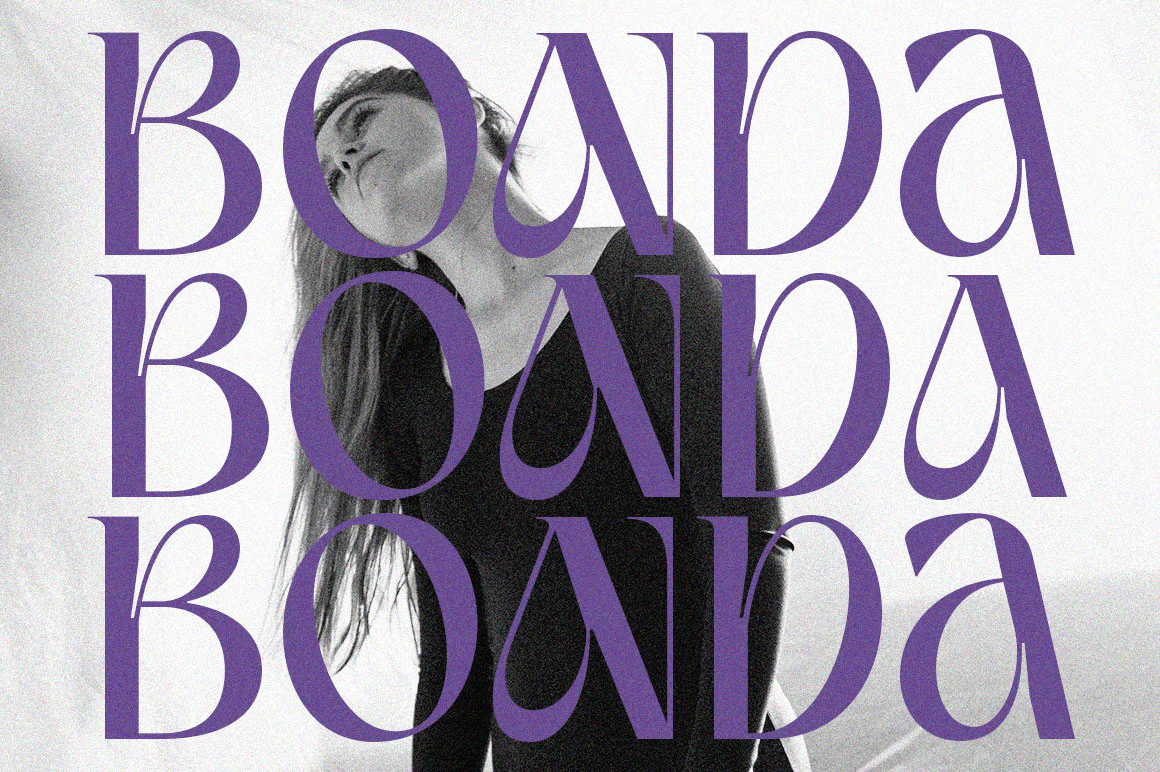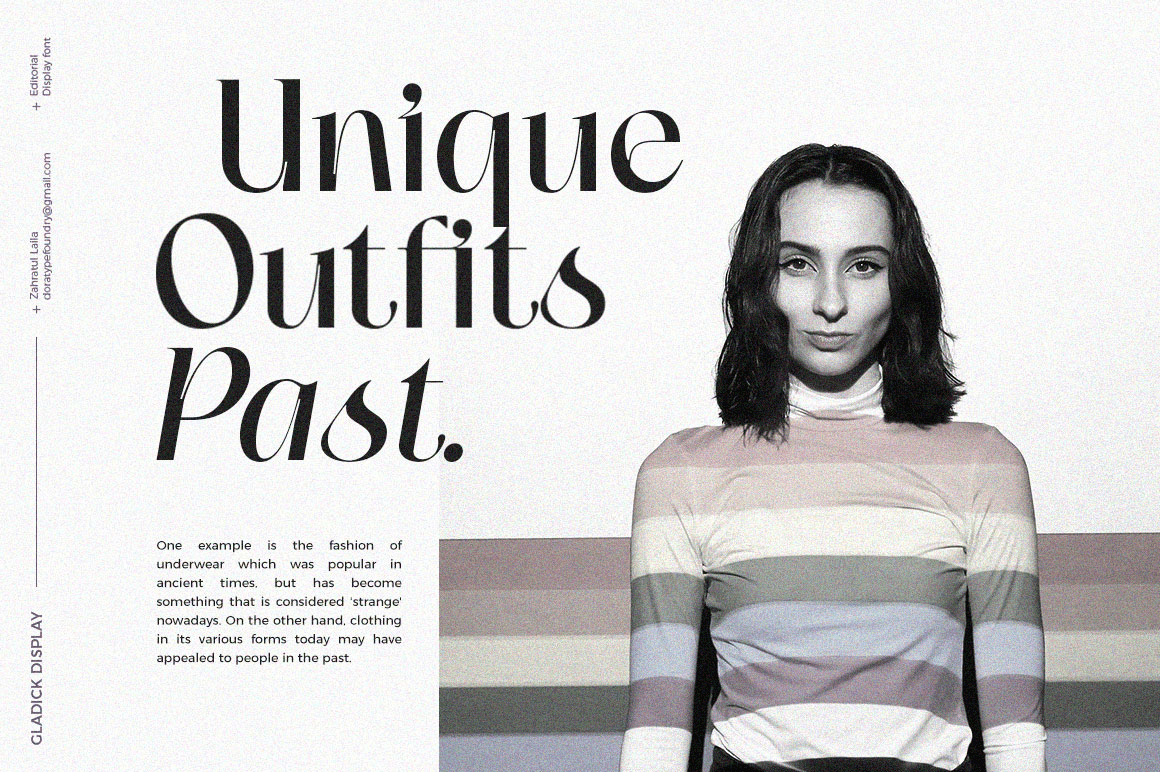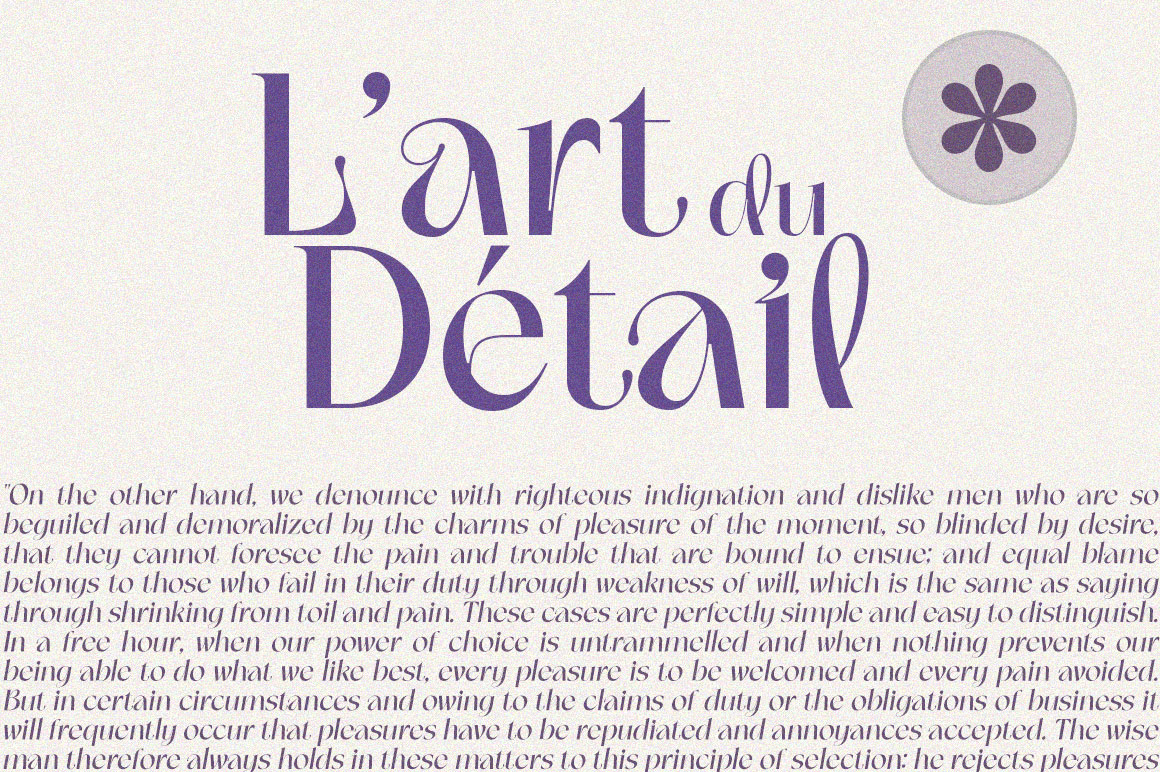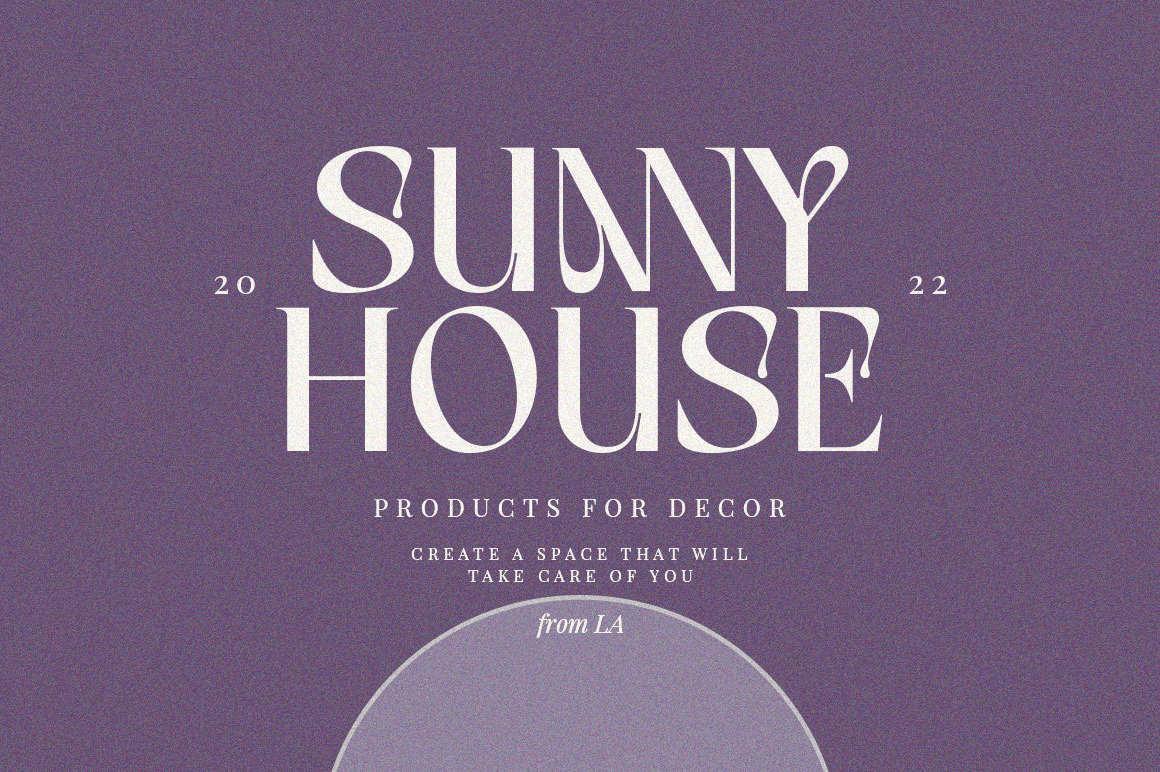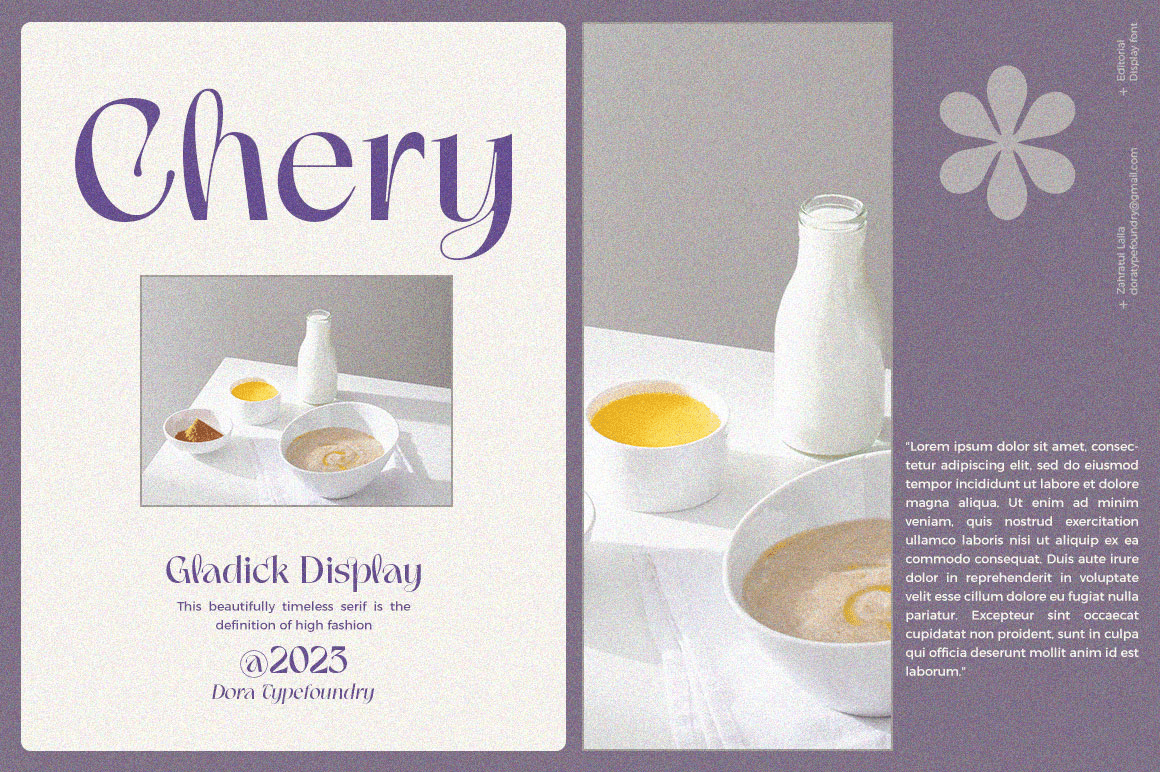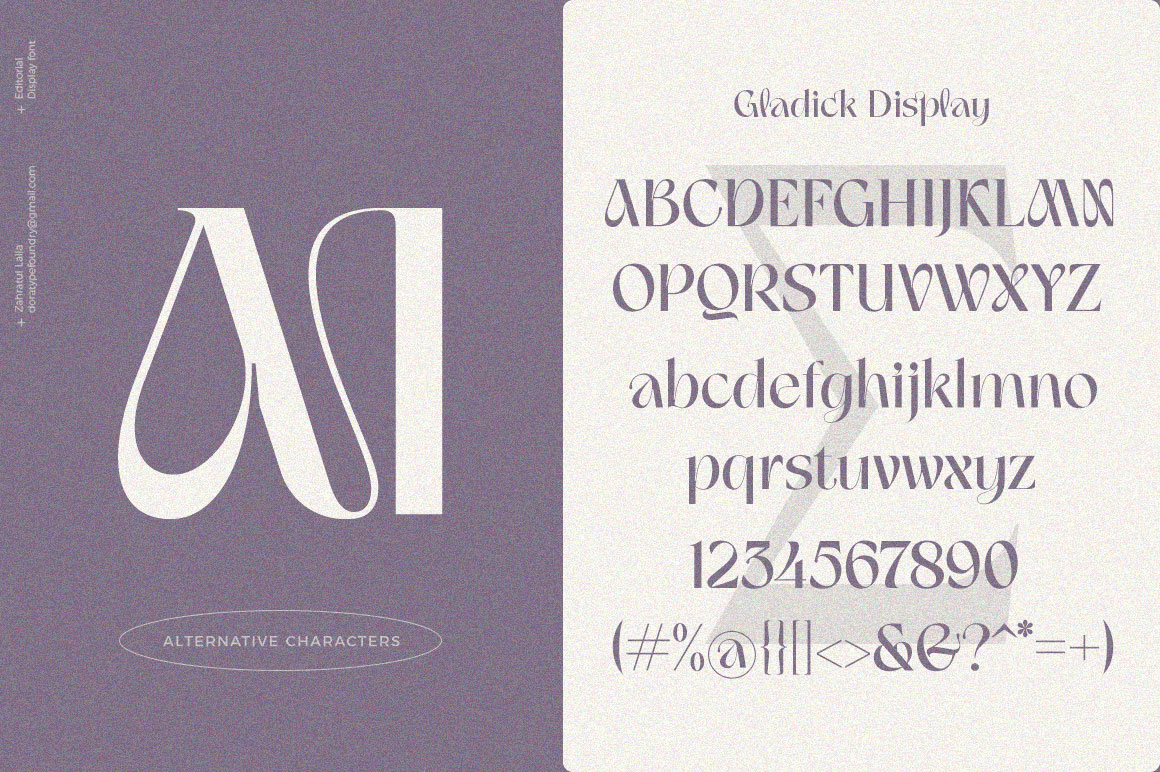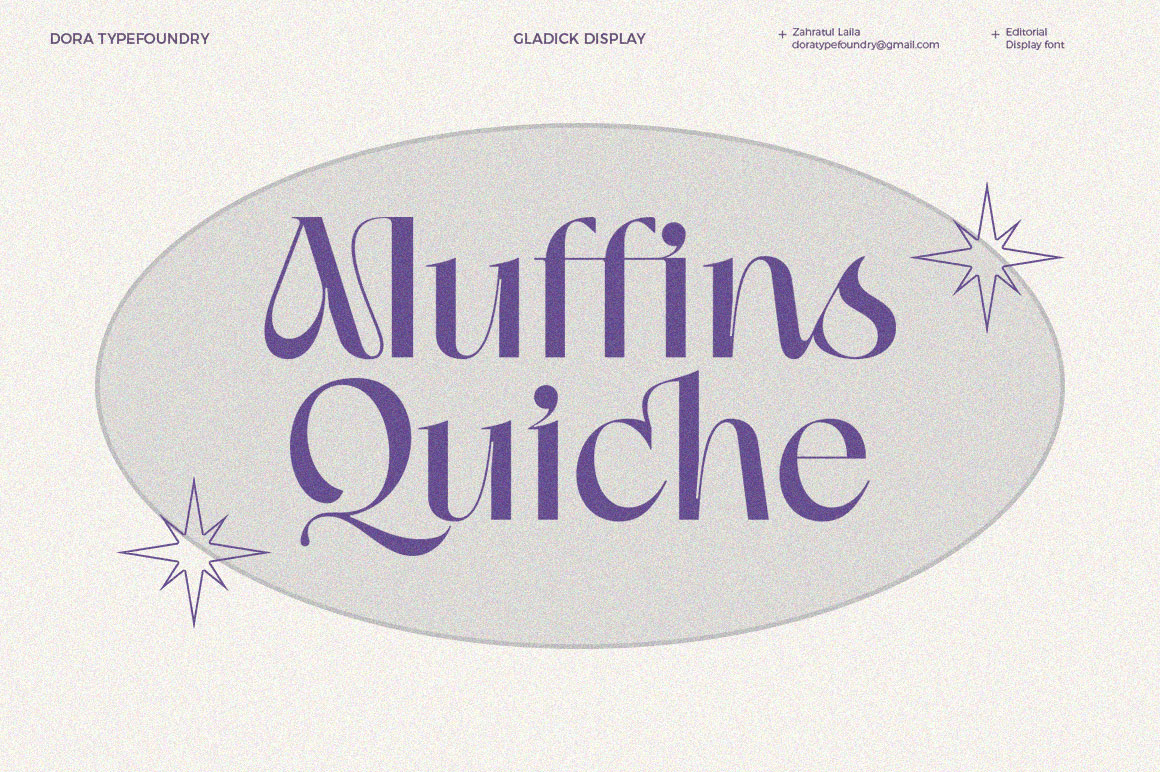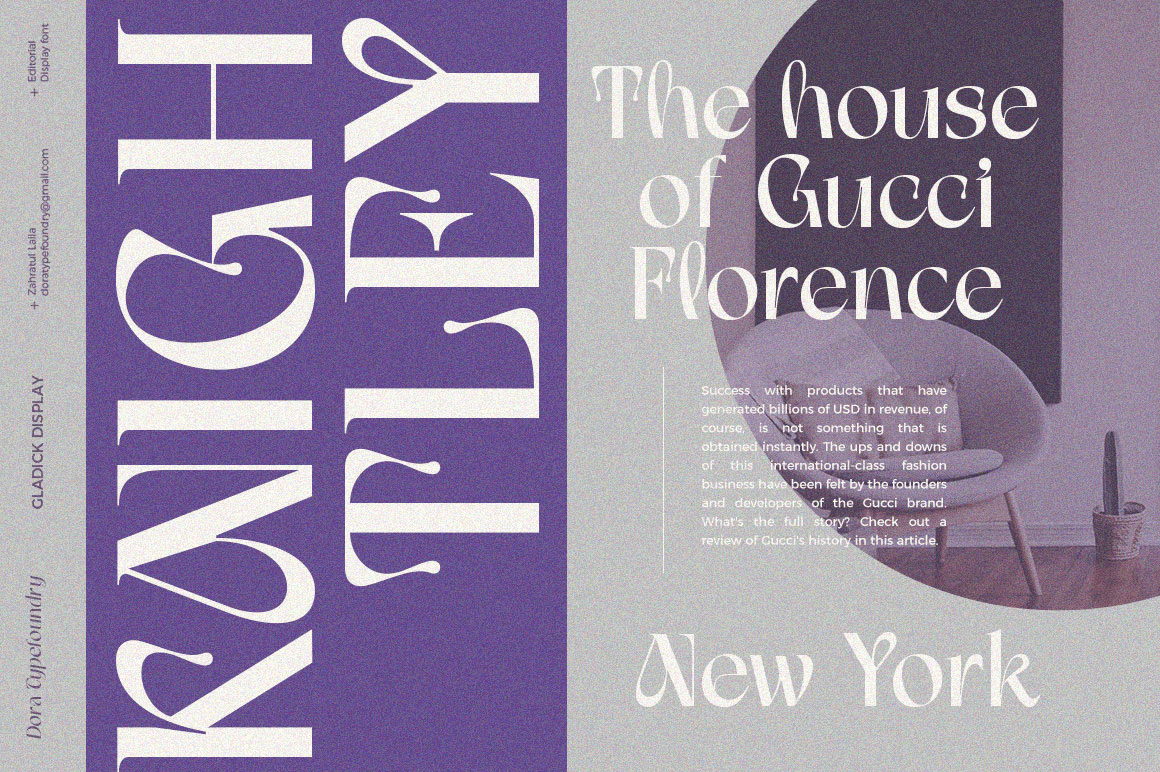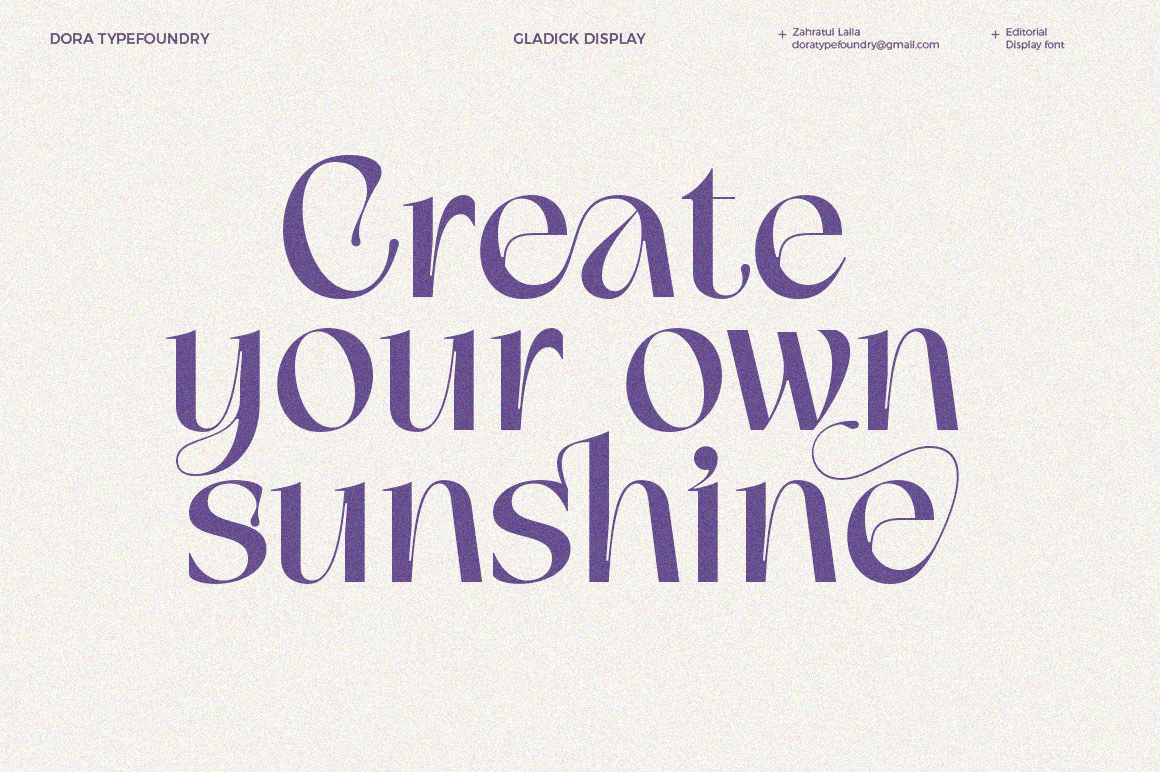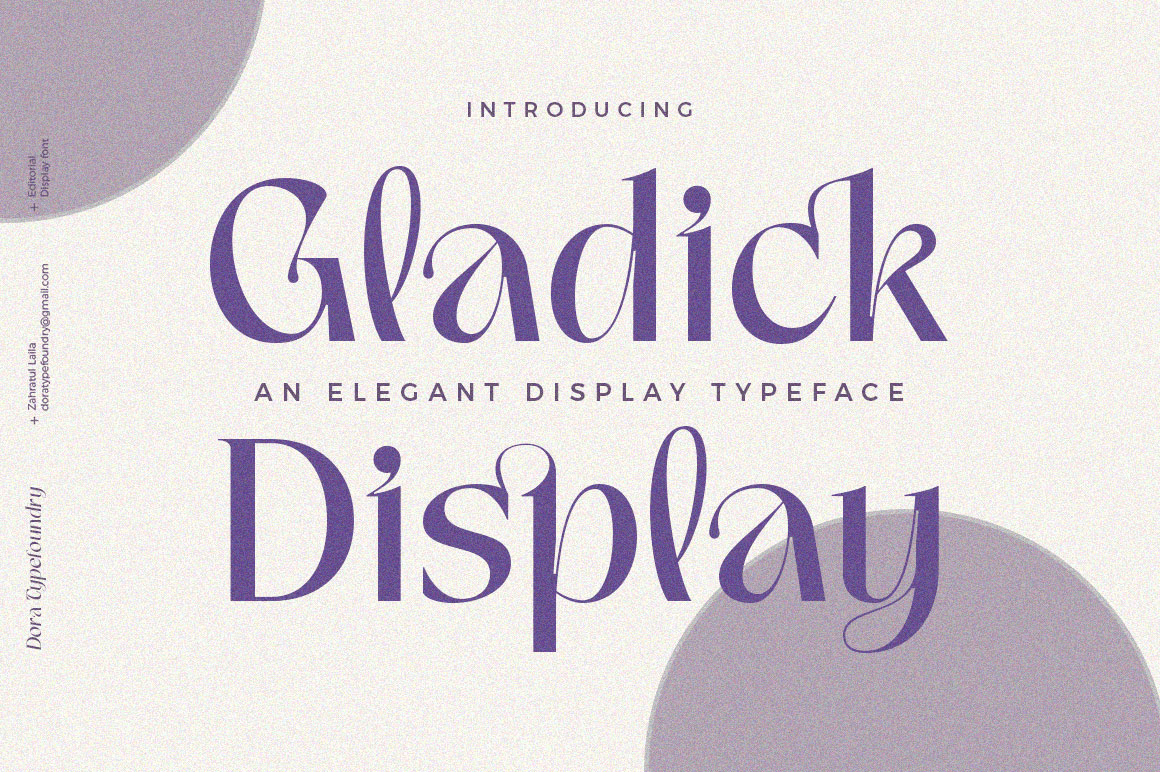
Gladick Display
About Gladick Display
Gladick is a modern take on a sans style typeface but mixes in the added contrast of serifs to make the font contemporary and memorable. Each letter is crafted with care to make your text unique yet stylish. Soft curves make for a bold type Now with the…